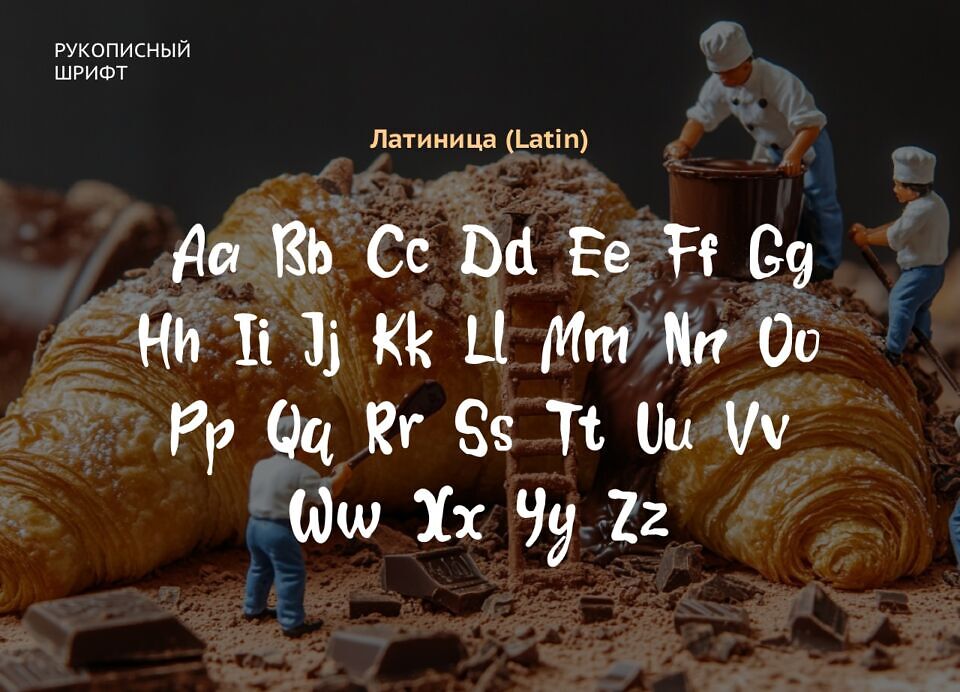
Pastry Chef is a charming handwritten font that supports 32 languages, ideal for menus, recipes, posters, and creative projects. With its cozy, authentic style, it adds a personal touch to any design.